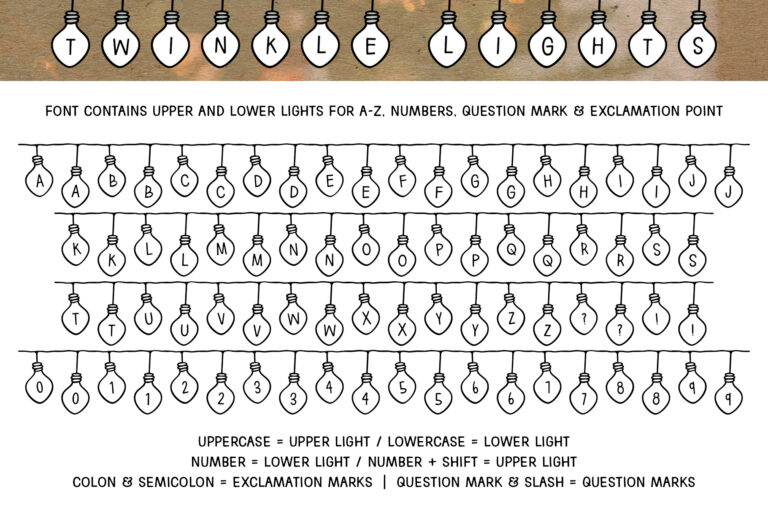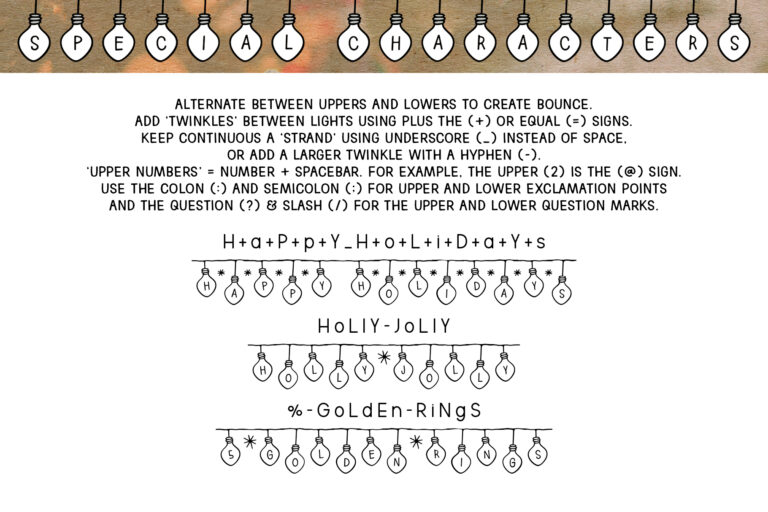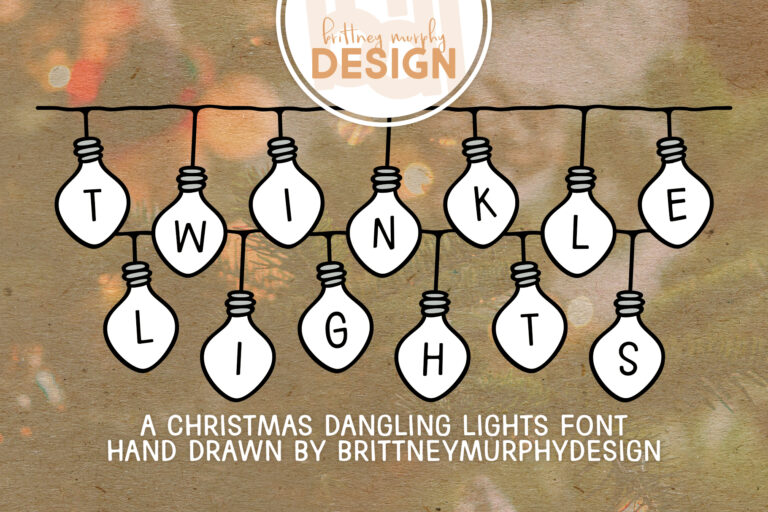
Twinkle Lights Font
The Twinkle Lights Font is a bouncy hanging lights font perfect for your holiday projects! It contains the letters A – Z, the exclamation point and question mark and numbers 0-9, all in both upper and lower lights.
Instructions & Special Characters:
To create the bouncing effect, just alternate between uppercase and lowercase letters.
To use the upper lights for numbers, type the number + the shift key. (For example, 1 = !, 2 = @, etc…)
For upper and lower exclamation marks, use the colon (:) and semicolon (;).
For upper and lower questions marks, use the question mark (?) and slash (/).
To create a continuous strand between words, use the underscore (_) instead of the spacebar.
To add ‘twinkles’ between letters, use the plus (+) or equals (=) keys.
To add a larger twinkle, use the hyphen (-).